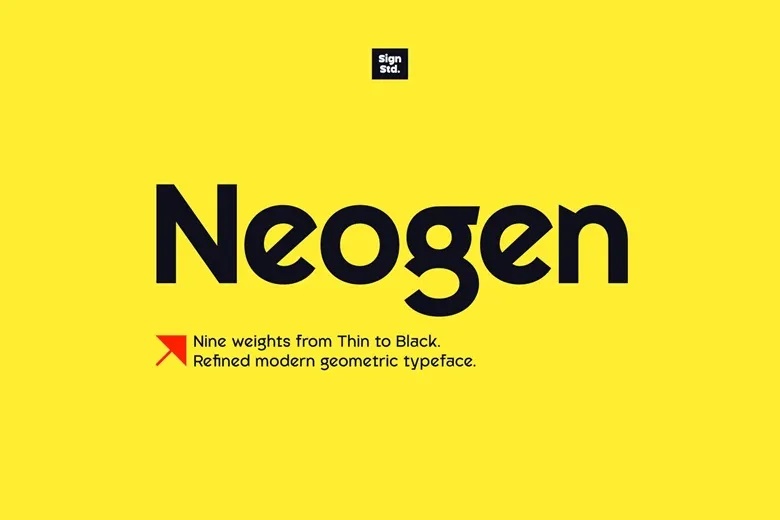
Neogen Font
Neogen is a modern sans-serif typeface designed for clarity, versatility, and strong visual appeal. Its geometric shapes and balanced proportions give it a clean, unique look that works well in many different settings. Neogen comes in nine weights, from Thin to Black, giving you flexibility for editorial design, branding, user interfaces, and digital projects.
Each weight stays consistent but has its own style, from the light, minimal look of the thinnest version to the bold impact of the heaviest. Neogen’s sharp details, careful spacing, and support for many languages make it a dependable option for designers who want both style and function. It works well for big headlines or small text, always keeping a modern, unified feel.